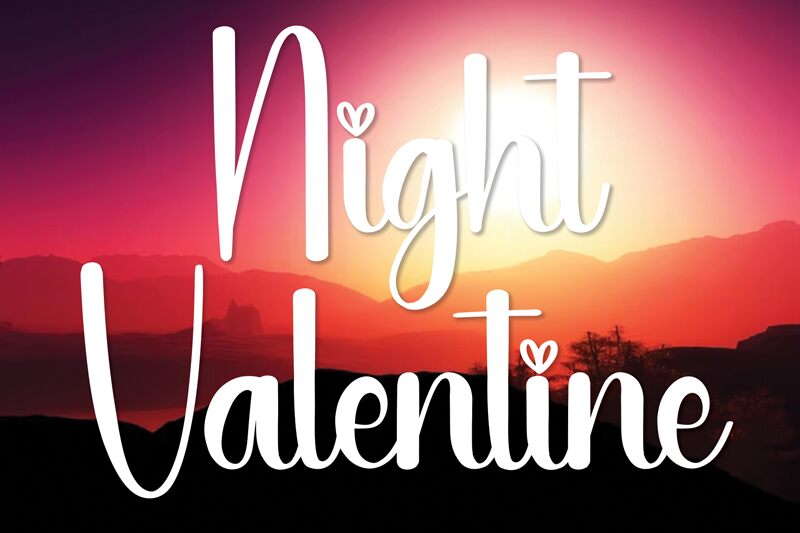
Night Valentine
Night Valentine, crafted by Scratchones, exudes a personal touch with its handwritten style that beckons with a blend of elegance and whimsy. Its fluid strokes and playful embellishments, like the charming hearts dotting its 'i's, evoke feelings of romance and intimacy. The font's balanced flow captures the essence of love letters penned under the soft glow of moonlight.
This font finds its home in projects that call for a dash of affection — from wedding invitations to personalized greeting cards or any design longing for a signature handcrafted feel. Night Valentine speaks to those seeking to convey warmth and sentimentality through their typographic choices.